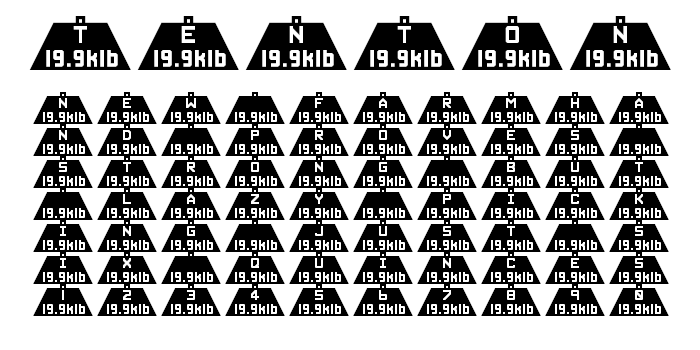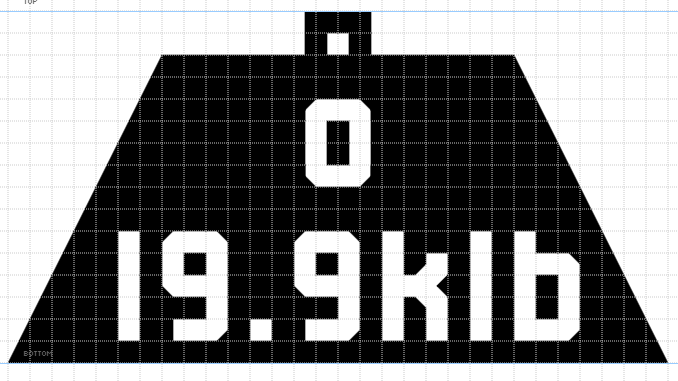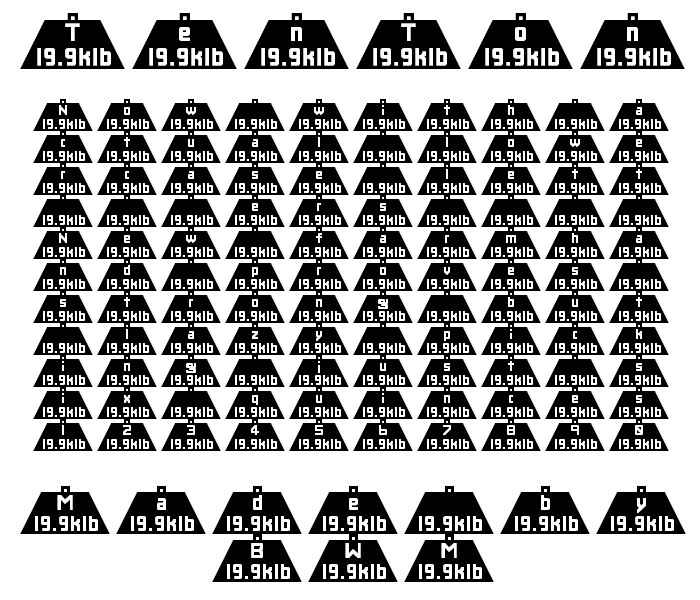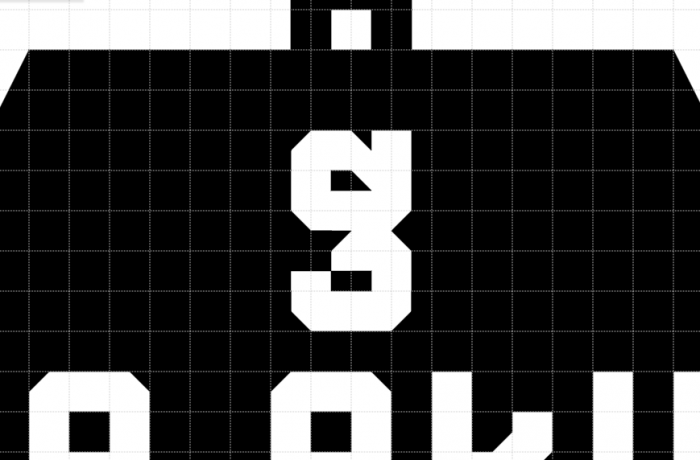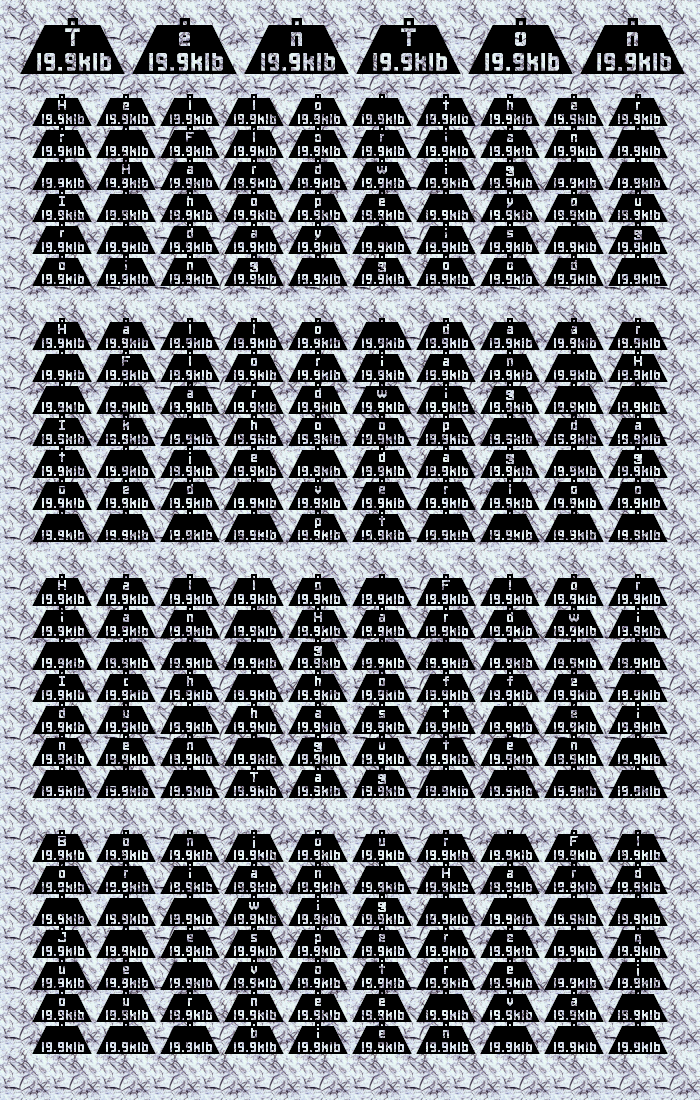
The letters are painted on what are literally ten ton weights.
an interesting interpretation of "heavy"
I have an idea: Why not make the marked weights equal to the decimal Unicode code point? e.g. the capital A is 65 tons, the lowercase a is 97 tons, etc.
funny enough, this was the first thing that came to my mind after reading the blog post on Heavycomp
@japanyoshi If I put the codepoint in decimal as the weight in tons, then the weights would be too heavy to even hold by the strongest rope.
@everyone Thanks. The font was named TenTon because of how heavy the weights were. The letters themselves are painted onto the weights. 19.9klb is roughly 10 tons of weight. I thought "what could be the heaviest thing I could think of", I went with the ten ton weights.
Here's a suggestion: to distinct uppercase from lowercase, but lowercase on 5 ton weights.
@JaceFonts I got the name from ten ton weights, if I made loweracse using five ton weights, then the font wouldn't be called "TenTon", but I can create actual lowercase letters, like so:
Lowercase added. (Corrected capitalization in sample)
The only thing I don't like is that lowercase 'g' is way too wide.
Something like this maybe?
@AFontAbove I made the lowercase g on there narrower, but your suggestion was too narrow for my liking. I put the original in the PUA.
Taking the theme too literally. I like it.
Can you make the normal version? (like without the ten ton weights, only regular glyphs)